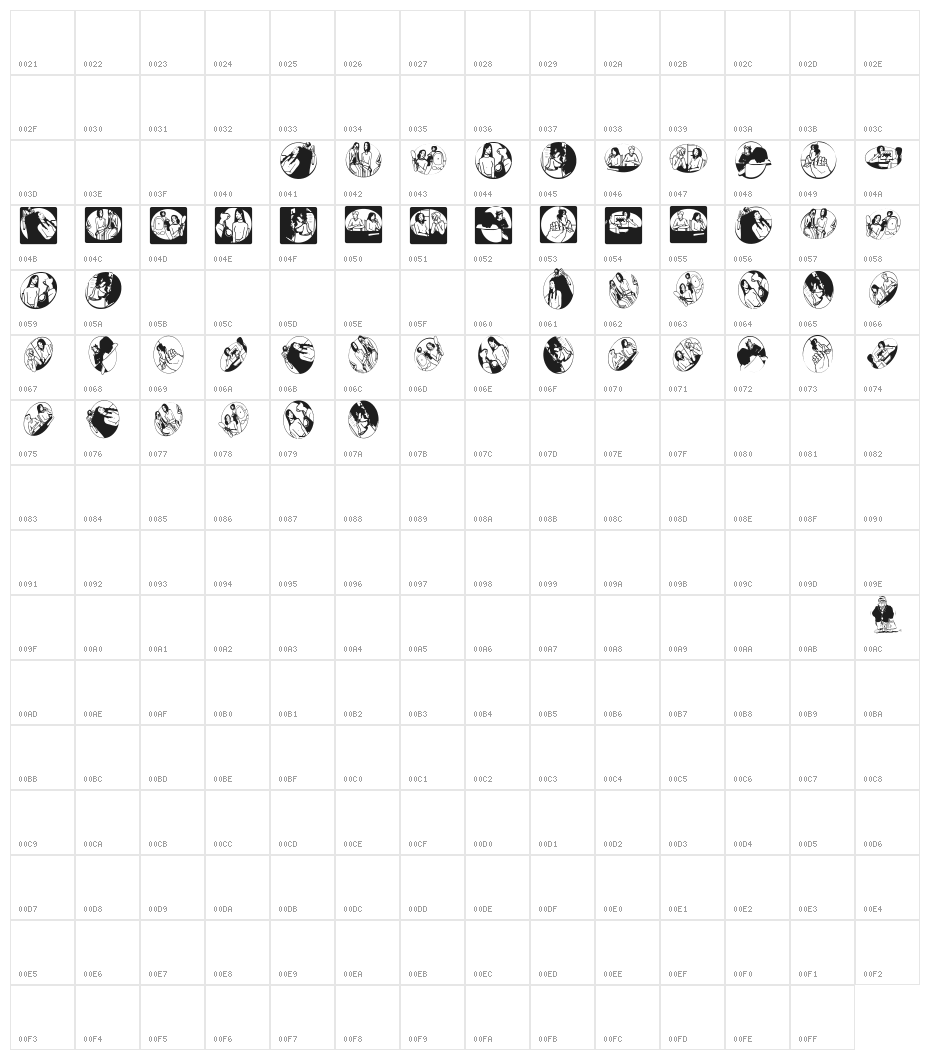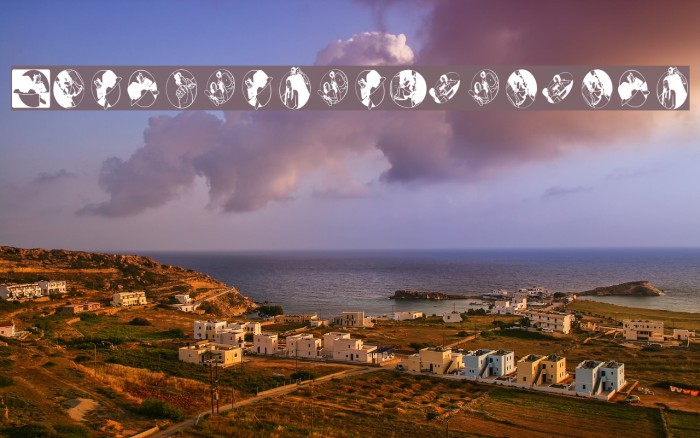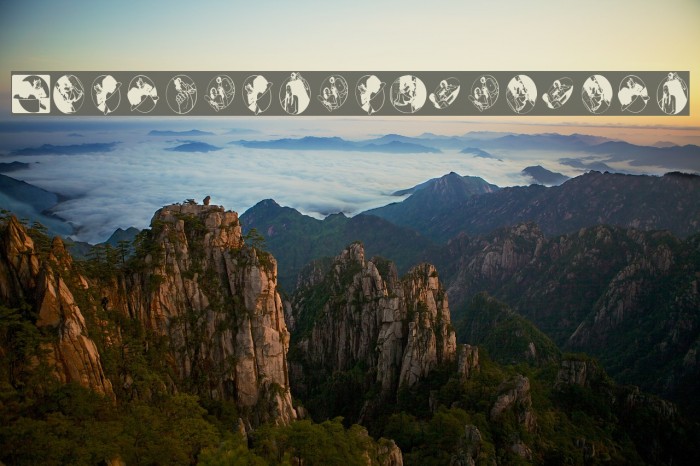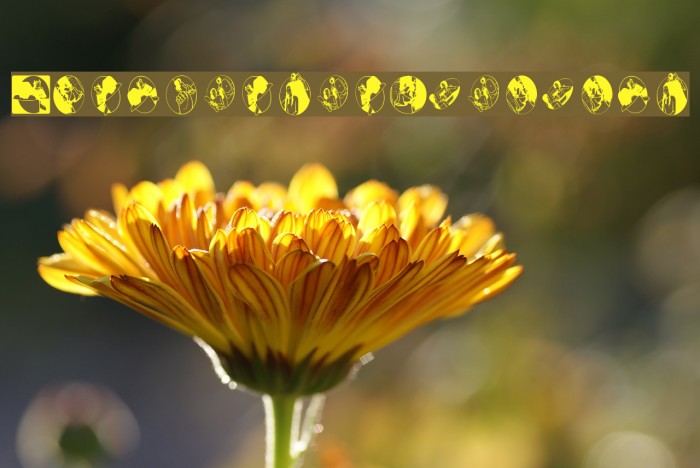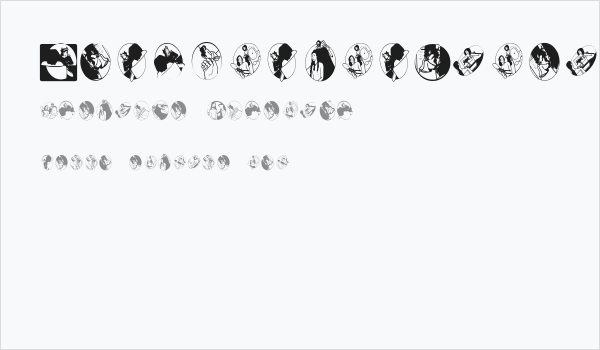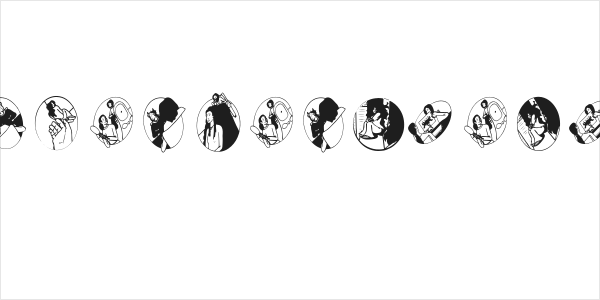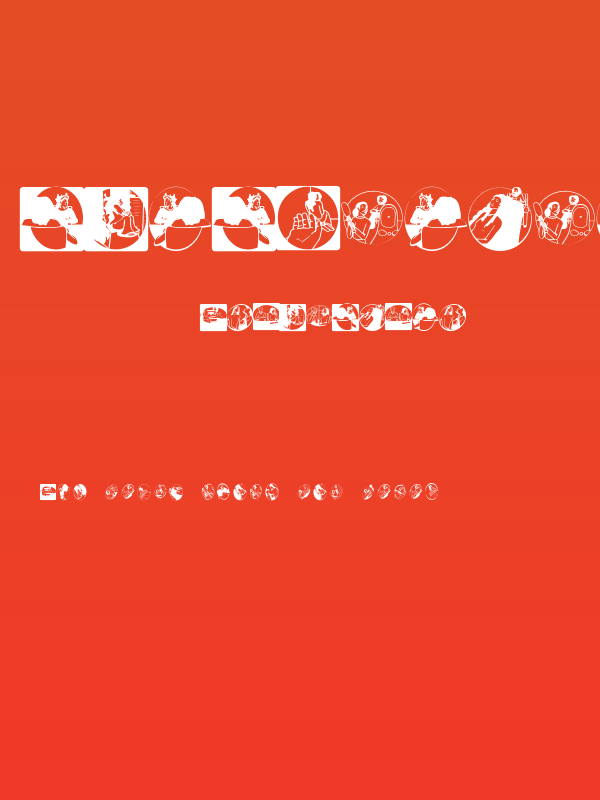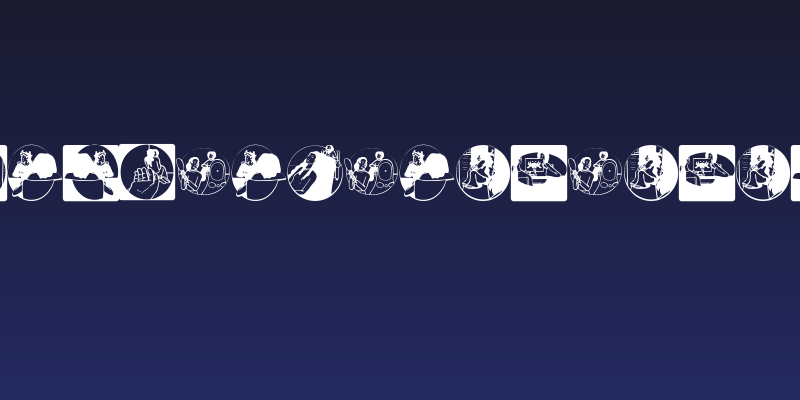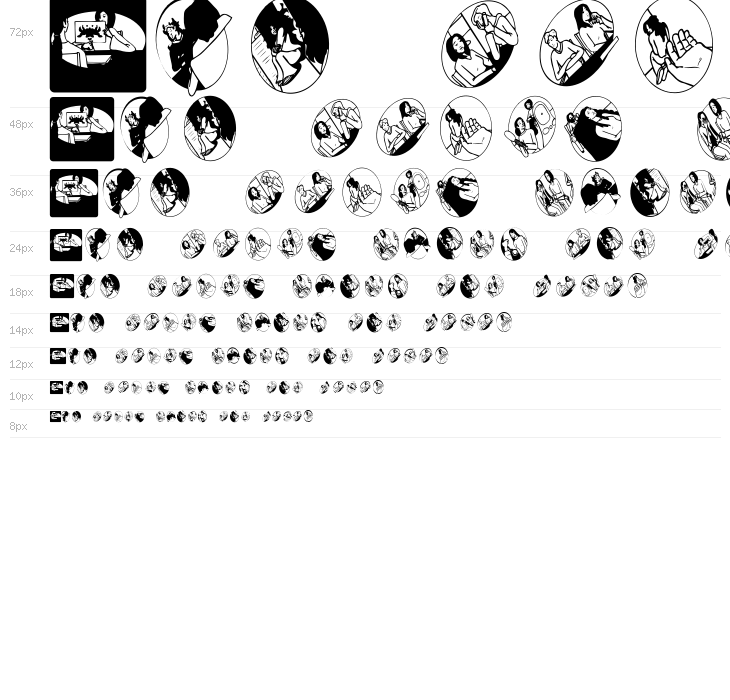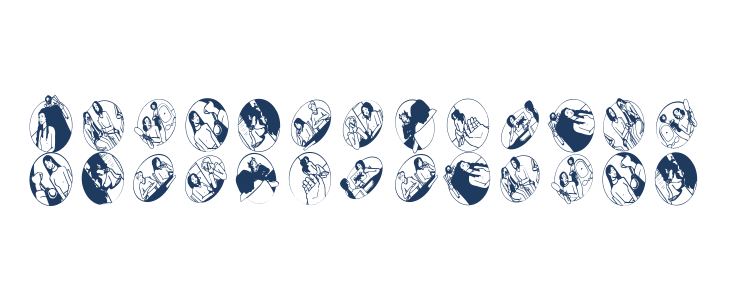
RohrschachEtcetera Font
RohrschachEtcetera Description
A highly decorative and illustrative font where each character is represented by a unique black-and-white drawing of people in various situations, all enclosed in circular frames. The style is sketch-like and expressive, with strong contrasts and a hand-drawn feel.
| Overall Style | Decorative, Artistic, Expressive |
| Use Case | Display, Posters, Artistic projects, Headlines |
| Proposed Projects | Art projects, posters, album covers, editorial illustrations, creative branding, zines. |